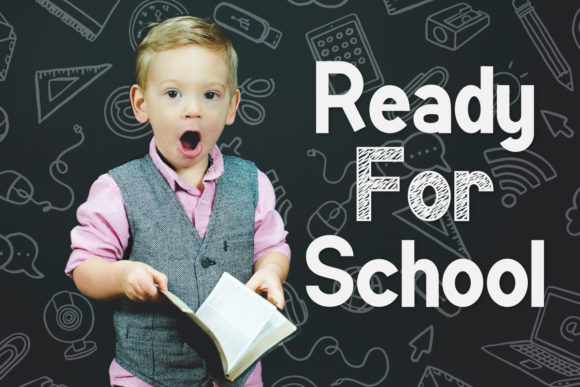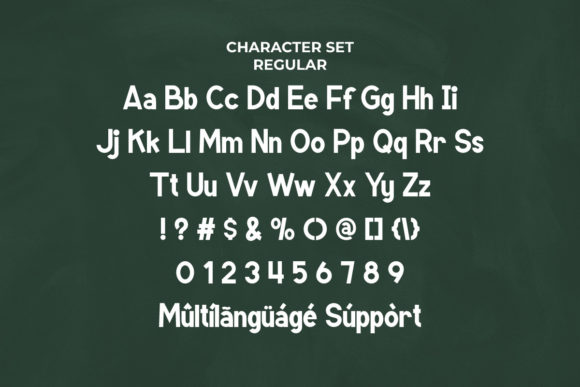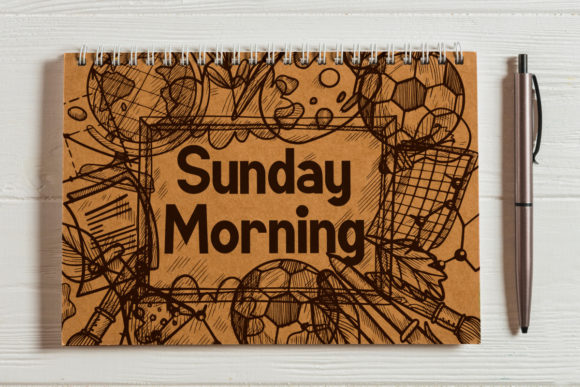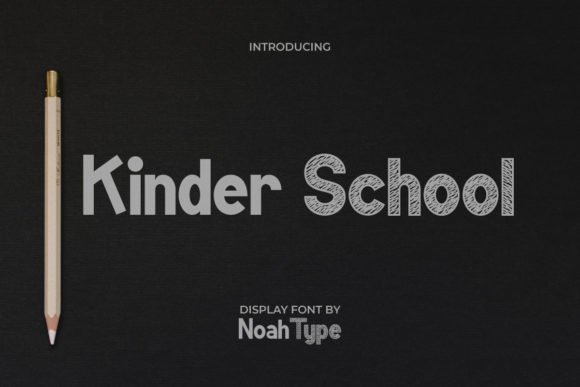
Introduction to Kinder School Font
Kinder School is a cool, bold and neat sans serif font.
Add it confidently to your favorite creations and let yourself be amazed by the outcome generated .
Key Features of Kinder School Font
Why Choose Kinder School Font?
Kinder School Font offers exceptional quality and versatility, making it a valuable addition to your design toolkit. Whether you’re creating for personal projects or commercial use, Kinder School Font delivers professional results.